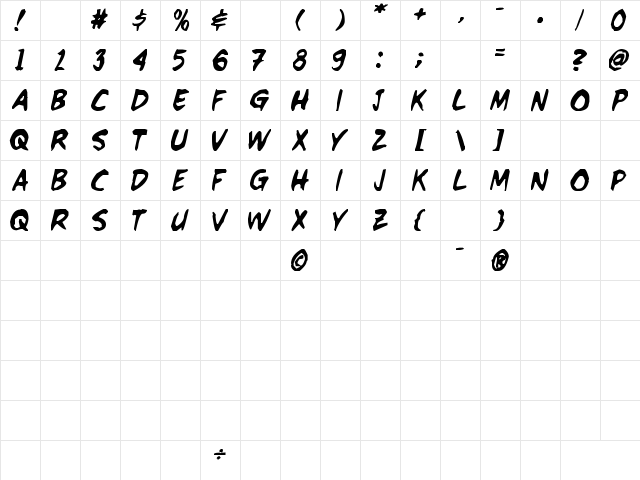
k Regular
Design Context for k Typeface
k is a composed and adaptable typeface that performs quietly and consistently across a wide range of design contexts.